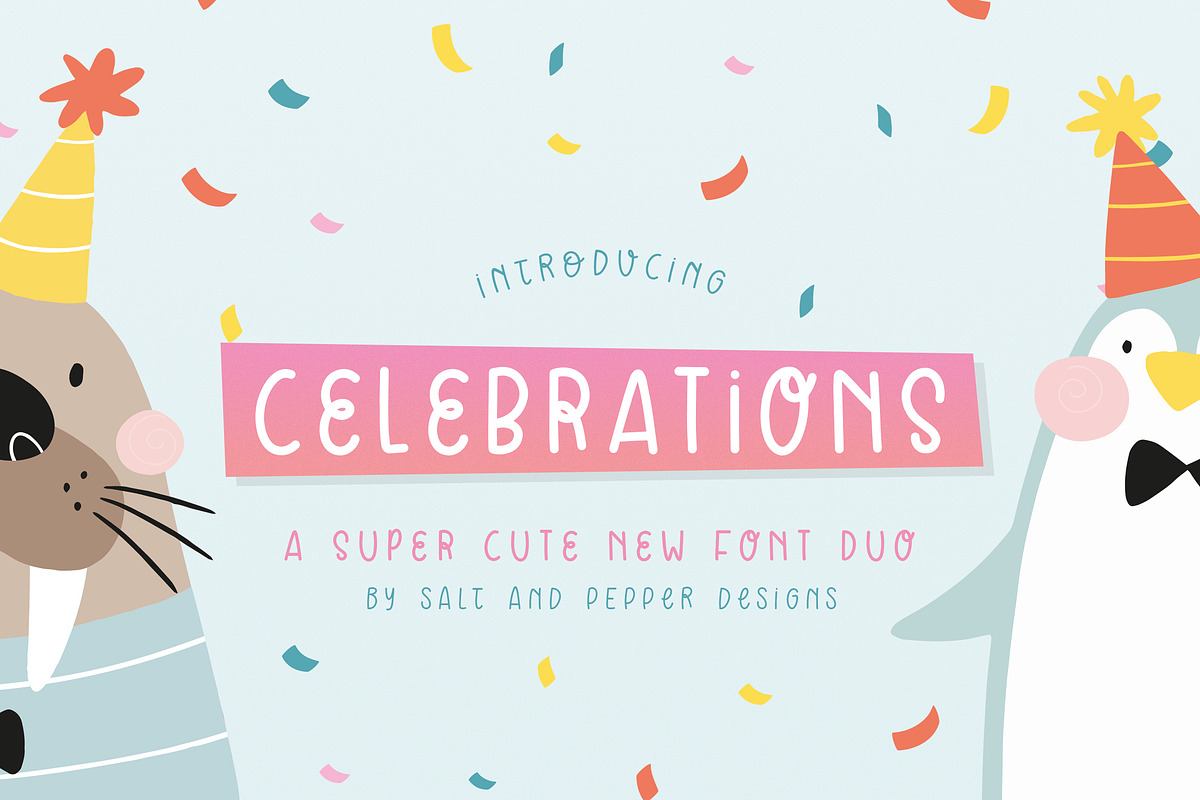
Celebrations Font Duo Free Download is a charming and elegant combination of a graceful script and a clean, modern sans-serif typeface. This versatile duo is perfect for wedding invitations, holiday greetings, event branding, social media graphics, and any design that needs a stylish mix of sophistication and modern flair.
The script font adds a personal, handwritten touch with its flowing curves, while the sans-serif font offers a clean, balanced look for headlines and body text. Together, they create a beautiful harmony, making it easy to craft designs that are both festive and polished.
Add elegance and celebration to your designs with the perfect pairing of Celebrations Font Duo!